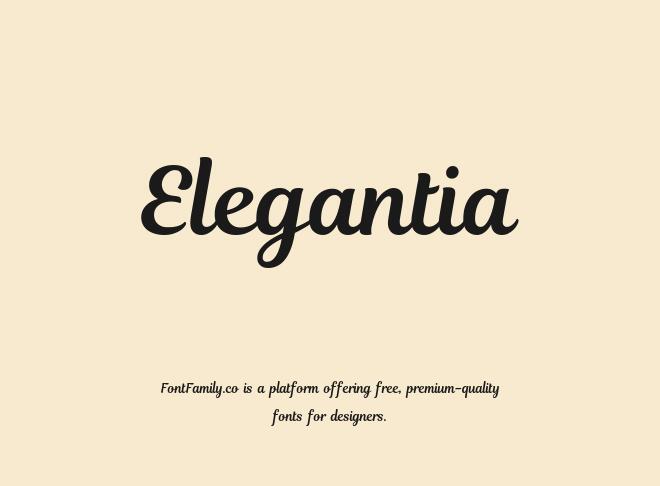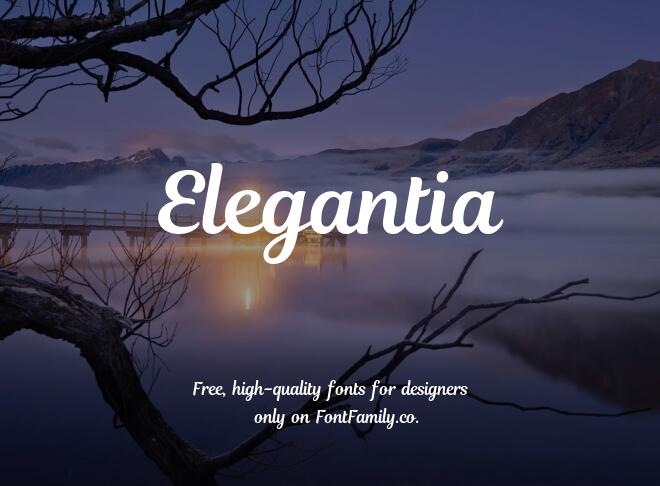
Elegantia Font
Elegantia Font is a modern calligraphy typeface that brings together the sophistication of calligraphy with the sleekness of modern design. This font is designed with a balanced mix of elegance and decorative elements, making it a great choice for wedding invitations, branding, fashion designs, and more. Its distinctive character set offers a unique blend of classic and contemporary, comparable to fonts such as 'Lavanderia' and 'Modern No. 20'. The Elegantia Font stands out with its refined aesthetics and high legibility, making any design look polished and professional. Its free personal use license is an added advantage for designers looking to add a touch of elegance to their projects without incurring extra costs.